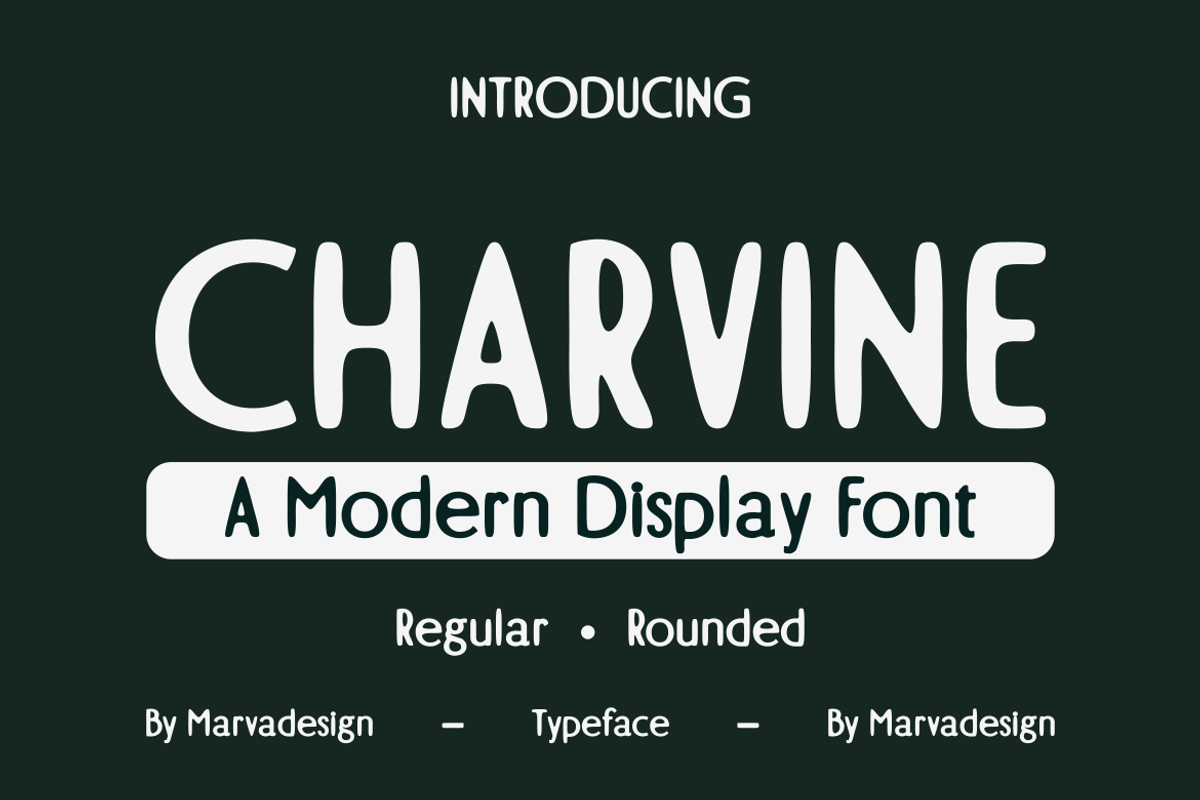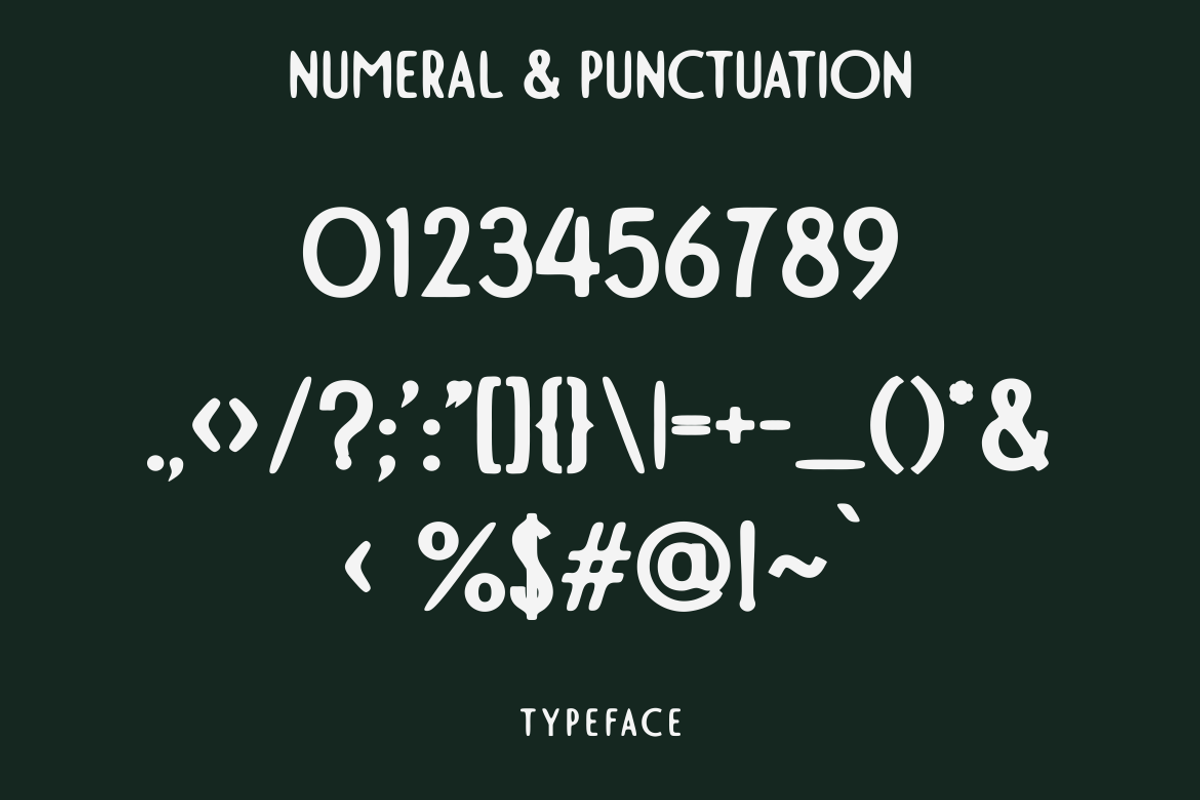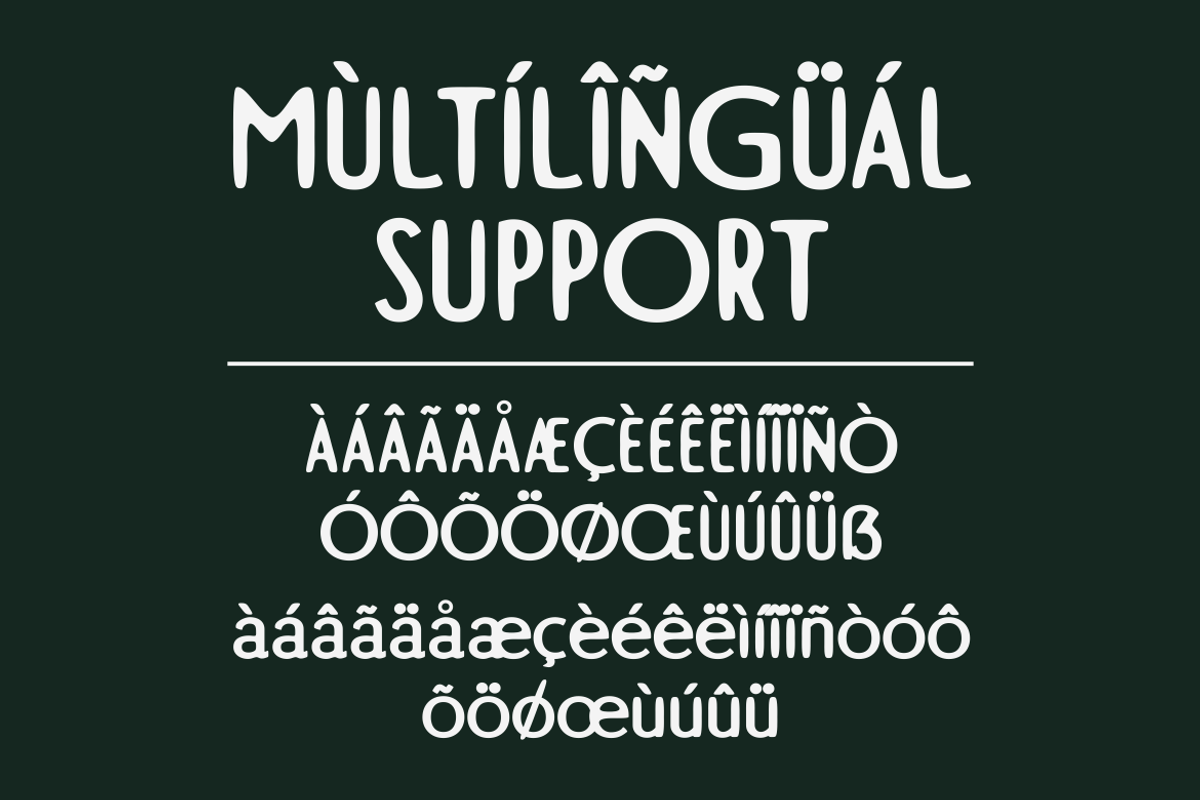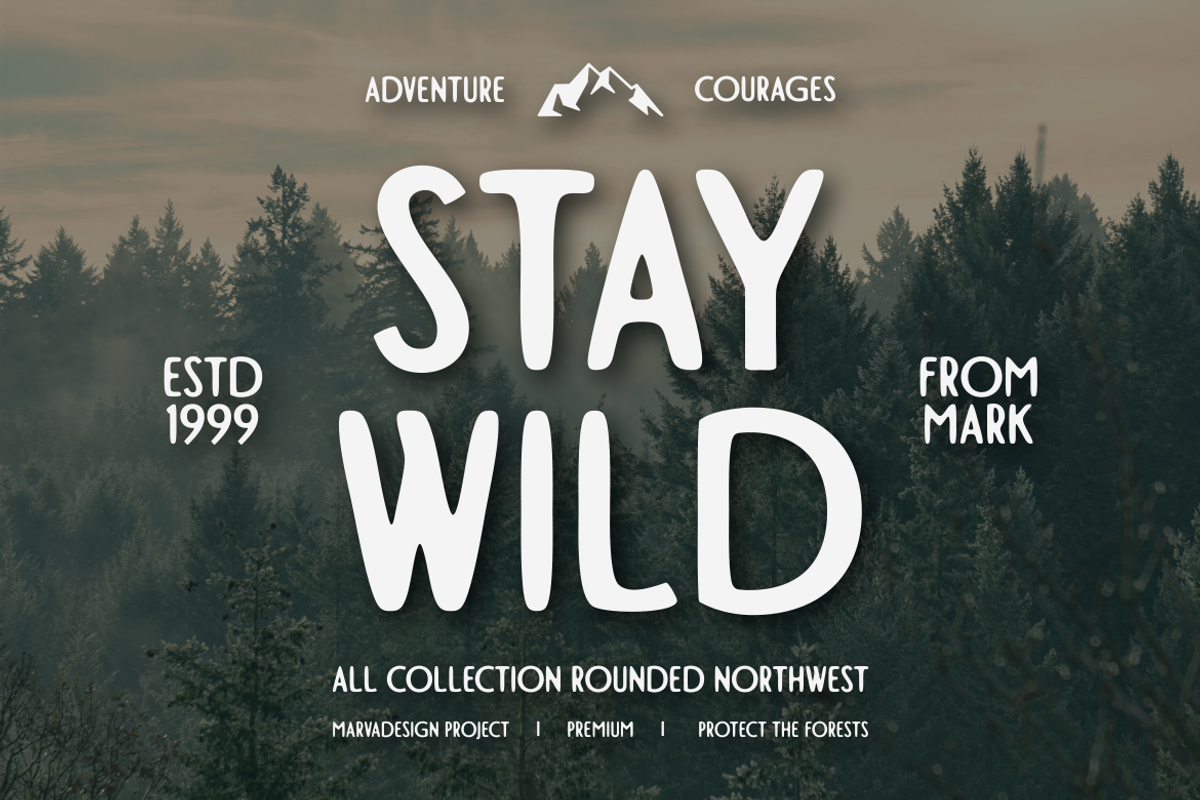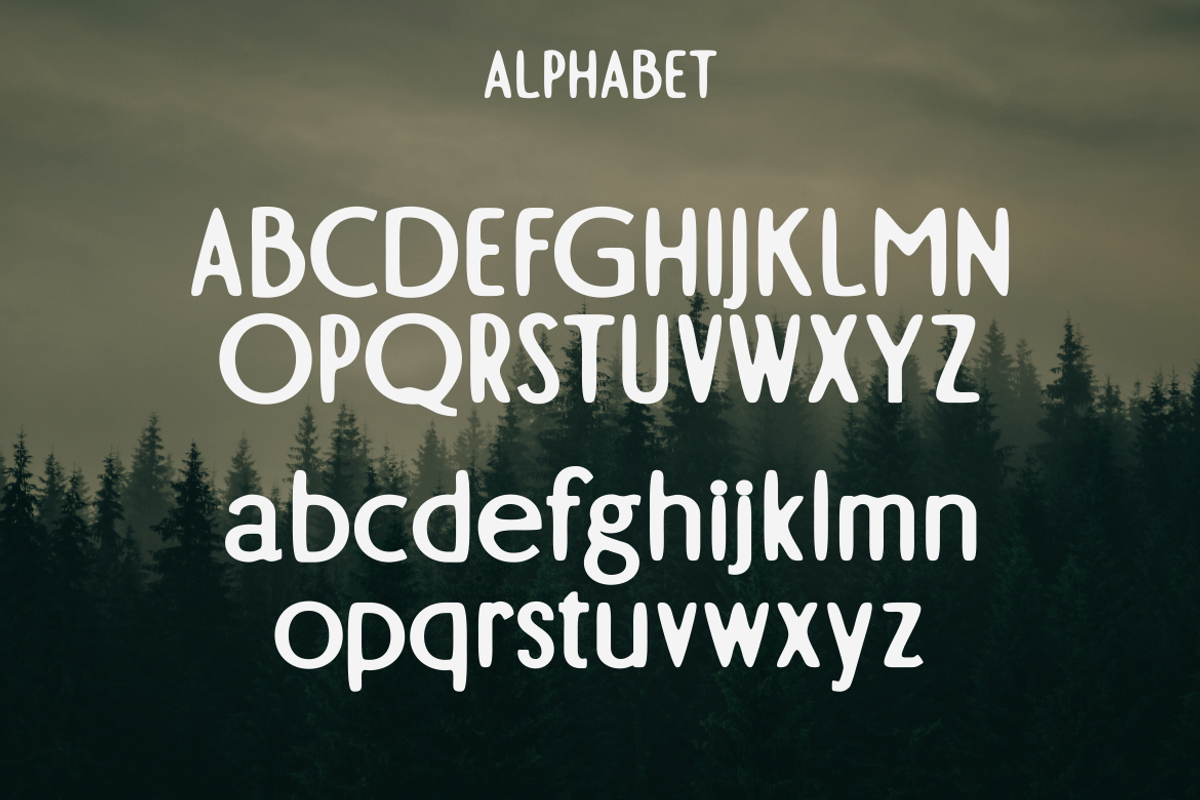
Charvine - A Modern Display Font
Introducing our new product CHARVINE Font - Modern Font CHARVINE Font*** - Modern Font is a bold and authentic display font. The font is suitable for any branding project like logo, Template Design, Product and many more. outstanding in a wide range of contexts.